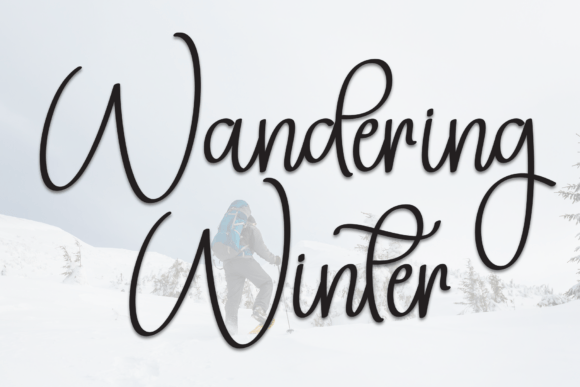
Wandering Winter Font: Elevate Your Designs with Elegance
Wandering Winter is a stylish and incredibly elegant script font that can add a touch of sophistication to various design projects. Its beautiful, cursive strokes make it perfect for wedding invitations, thank you cards, quotes, greeting cards, logos, business cards, and more. In this article, we’ll explore the features and benefits of Wandering Winter Font and how it can elevate your designs.
What is Wandering Winter Font?
Wandering Winter Font is a script font designed to bring a sense of elegance and refinement to your designs. Its cursive strokes are carefully crafted to create a beautiful, flowing script that exudes sophistication and poise. The font is perfect for designs that require a personal touch, such as wedding invitations, greeting cards, and quotes.
Key Features of Wandering Winter Font
- Elegant Script Strokes: Wandering Winter Font features beautiful, cursive strokes that add a touch of elegance to your designs.
- Versatile: The font is perfect for various design projects, including wedding invitations, thank you cards, quotes, greeting cards, logos, and business cards.
- Handwritten Touch: Wandering Winter Font brings a handwritten touch to your designs, making them more personal and unique.
- Easy to Read: Despite its elegant strokes, Wandering Winter Font is easy to read, making it perfect for designs that require a clear and concise message.
Benefits of Using Wandering Winter Font
Using Wandering Winter Font in your designs can bring numerous benefits. Here are a few:
- Adds Elegance: Wandering Winter Font adds a touch of elegance and sophistication to your designs, making them more visually appealing.
- Creates a Personal Touch: The font’s handwritten strokes create a personal touch, making your designs more unique and special.
- Versatile: Wandering Winter Font is versatile and can be used in various design projects, from wedding invitations to business cards.
Design Ideas Using Wandering Winter Font
Wandering Winter Font is perfect for various design projects. Here are a few ideas to get you started:
- Wedding Invitations: Use Wandering Winter Font to create beautiful, elegant wedding invitations that set the tone for the big day.
- Thank You Cards: Add a personal touch to your thank you cards with Wandering Winter Font.
- Quotes: Use Wandering Winter Font to create stunning quote designs that inspire and motivate.
- Greeting Cards: Create beautiful greeting cards for special occasions, such as birthdays, anniversaries, and holidays.
- Logos: Use Wandering Winter Font to create elegant logos for your business or brand.
- Business Cards: Add a touch of sophistication to your business cards with Wandering Winter Font.
Tips for Using Wandering Winter Font
Here are a few tips to help you get the most out of Wandering Winter Font:
- Use it Sparingly: Use Wandering Winter Font sparingly to avoid overwhelming your design. It’s perfect for headings, titles, and accents.
- Pair it with Other Fonts: Pair Wandering Winter Font with other fonts to create a unique and visually appealing design.
- Adjust the Font Size: Adjust the font size to suit your design needs. A larger font size can create a bold statement, while a smaller font size can create a more subtle effect.
- Experiment with Colors: Experiment with different colors to find the perfect match for your design.
Wandering Winter Font is a stylish and elegant script font that can elevate your designs to the next level. Its beautiful, cursive strokes make it perfect for various design projects, from wedding invitations to business cards. With its versatility, ease of use, and elegant strokes, Wandering Winter Font is a great addition to any designer’s toolkit.
- What is Wandering Winter Font?: Wandering Winter Font is a script font designed to bring a sense of elegance and refinement to your designs.